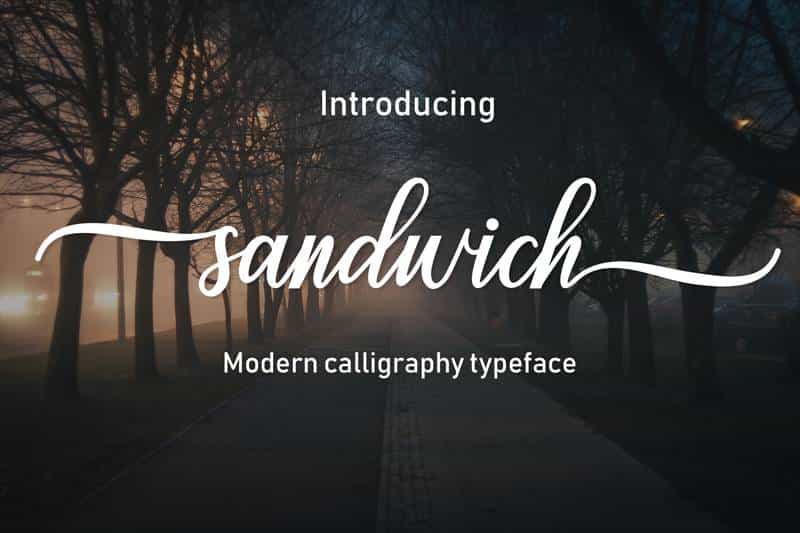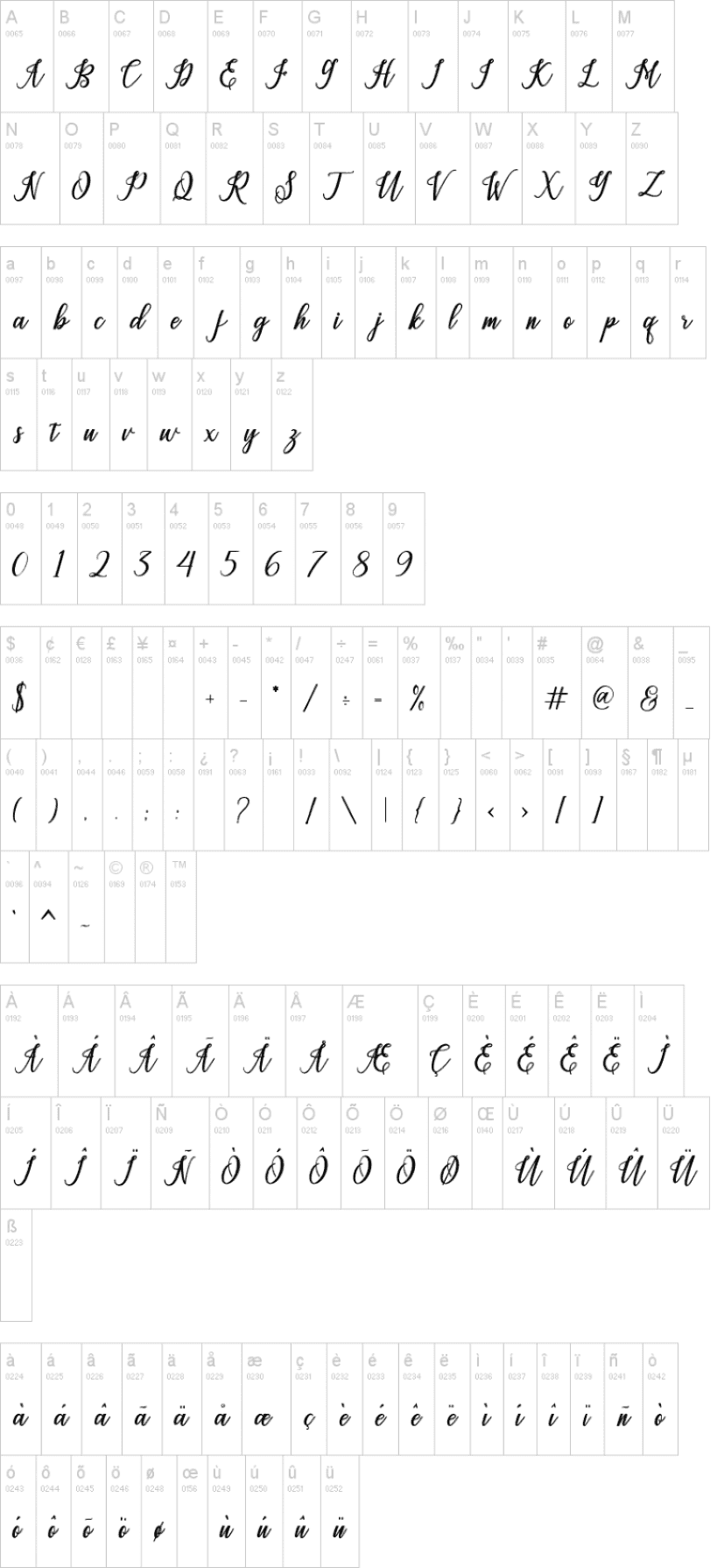
Discover Sandwich Font, part of the Calligraphy collection—a versatile and unique font perfect for adding a personal touch to your projects. Download it for free and enjoy crafting designs with style, from invitations to social media posts. This font is available exclusively for personal use, giving you the freedom to create without limits. Unlock your creativity with Sandwich Font today!
The sandwich font is a very good Calligraphy font that has been designed by Amar Lettering and is available for free download for personal use. The free version contain all capitals and small letters and only some special characters too.